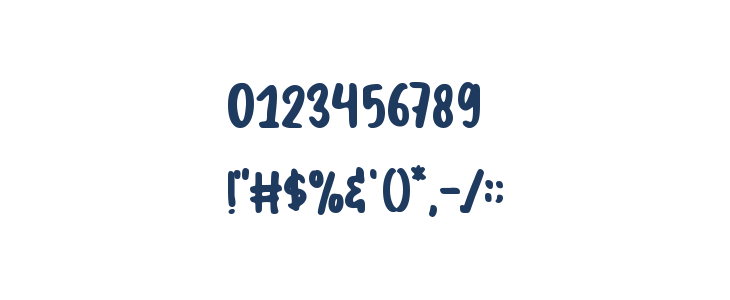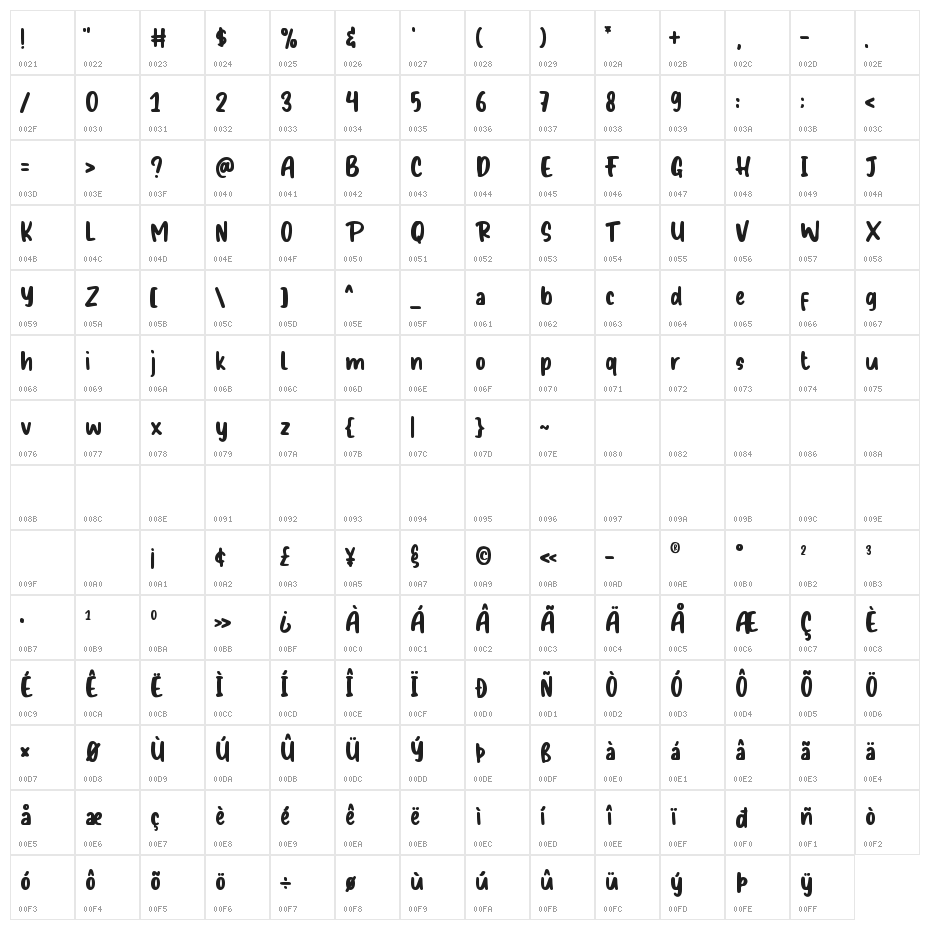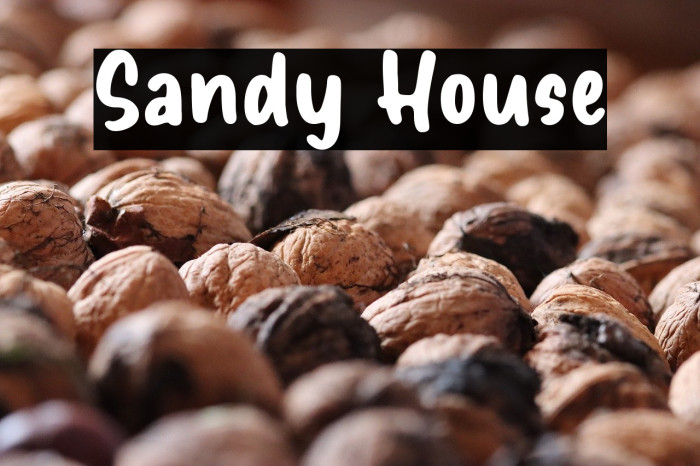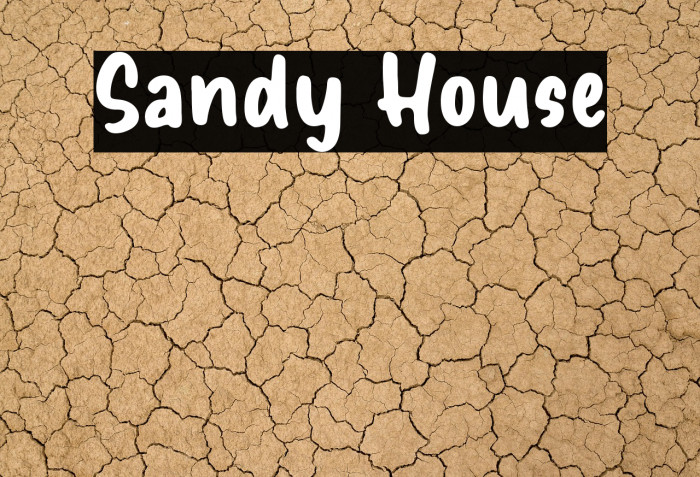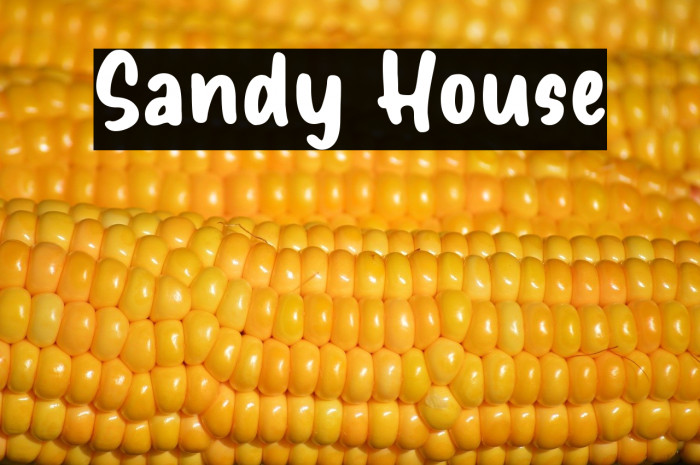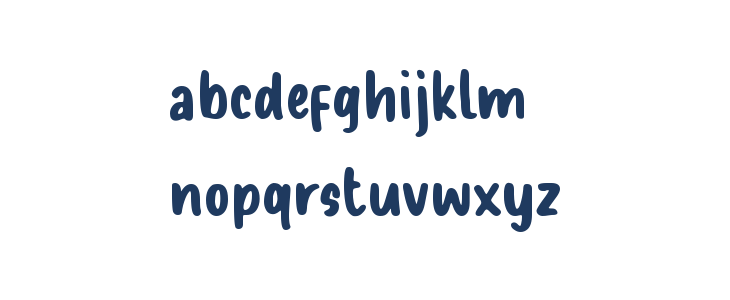
Sandy House Font
Sandy House Description
This playful and bold font features a handwritten style with rounded edges and a casual, friendly appearance. The letters are slightly irregular, adding to the informal and approachable feel. The uppercase and lowercase characters maintain a consistent style, with a smooth flow and a touch of whimsy. The numbers and special characters are designed to match the overall aesthetic, making this font versatile for various creative projects. Its distinct personality makes it suitable for designs that require a personal touch or a fun, lively vibe.
| Proposed Projects | Ideal for greeting cards, children's books, playful branding, and social media graphics. |